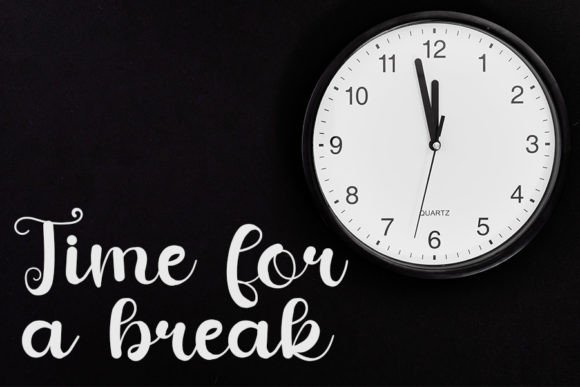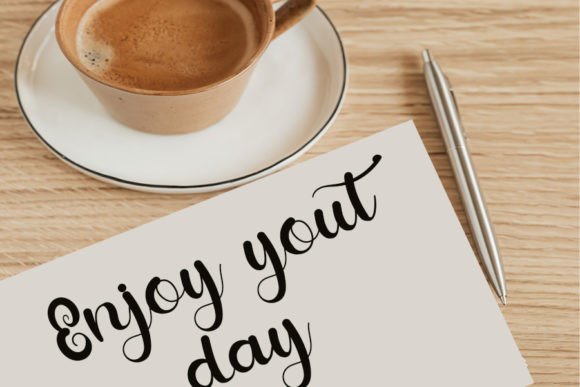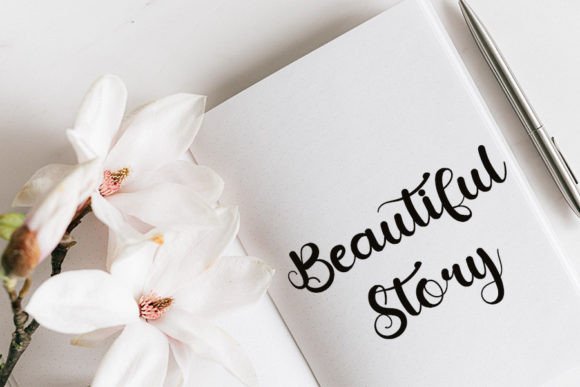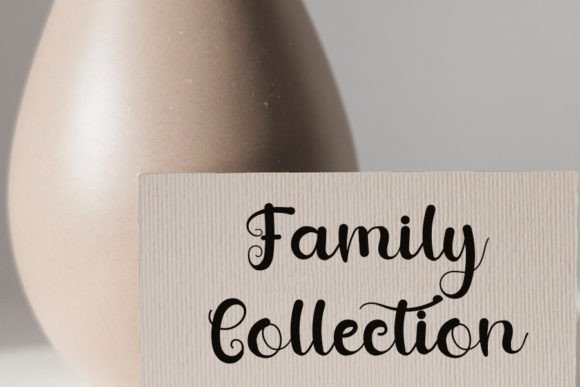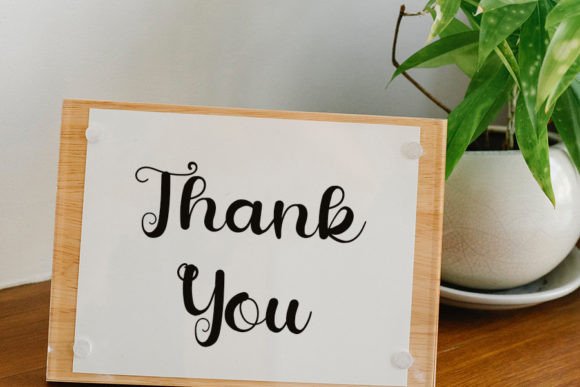
Handland Font
About Handland Handwritten Font
Handland Handwritten Font is a cool and modern script typeface inspired by the elegance of classic calligraphy. With balanced strokes and a spotless form, it blends timeless artistry with contemporary style. Because of its versatile structure, Handland Handwritten Font is perfect for branding, invitations, packaging, posters, magazine layouts, and social media graphics.
A Modern Typeface with Classic Elegance
Handwritten fonts bring character and charm, and Handland HandwrittenFont reflects these qualities beautifully. Its strokes are not too thin and not too thick, achieving a polished balance that makes it suitable for both professional and casual designs. In addition, the calligraphic influence ensures that it remains stylish and refined across multiple uses.
Special occasions call for fonts that feel personal, and Handland HandwrittenFont is an excellent choice. For example, it adds beauty and charm to wedding invitations, thank-you cards, and menus. Moreover, it enhances greeting cards, holiday stationery, and birthday notes, giving every project a heartfelt, unique touch.
A Script Typeface for Branding and Packaging
Businesses and creatives will find Handland HandwrittenFont especially effective for branding projects. It works wonderfully on boutique logos, product labels, and promotional materials. Furthermore, it adapts seamlessly to social media campaigns, advertisements, and website headers. When paired with clean sans serif fonts, it creates a balanced and professional design.
Flexible Across Print and Digital Media
Another advantage of Handland HandwrittenFont is its adaptability across platforms. In print, it looks stunning on posters, flyers, and merchandise. Digitally, it integrates smoothly into blogs, e-commerce stores, and digital ads. Since it scales cleanly from small details to large banners, it performs consistently across all design mediums.